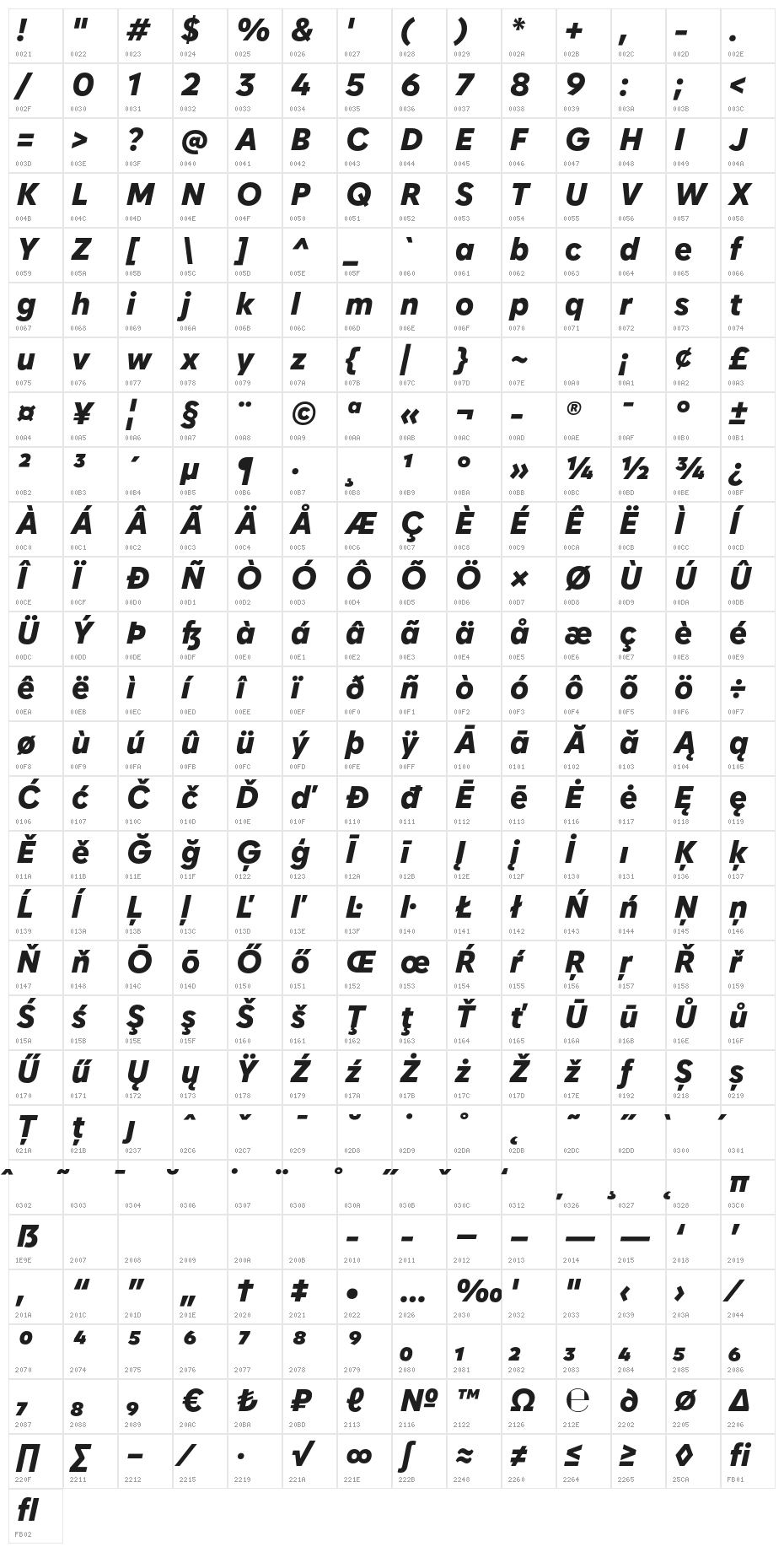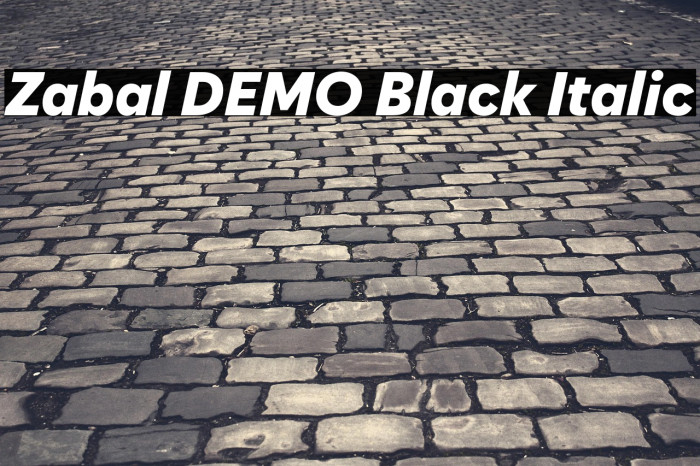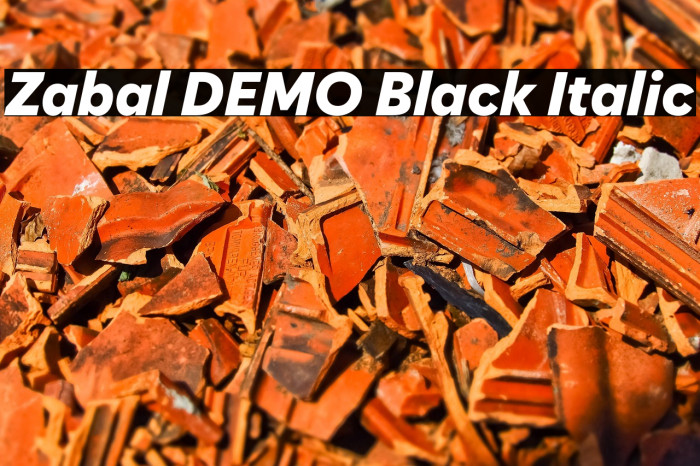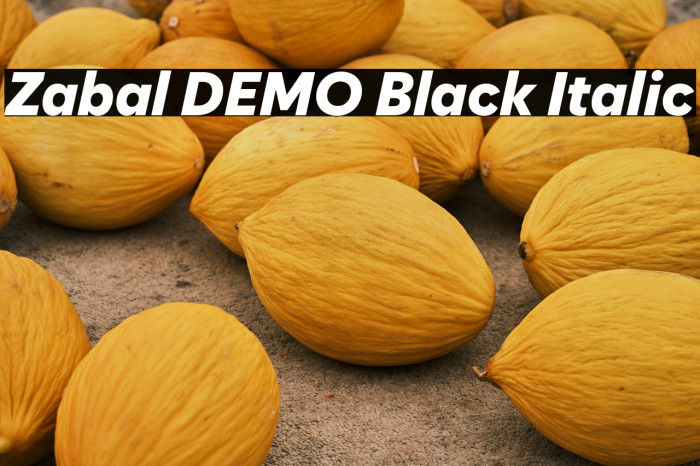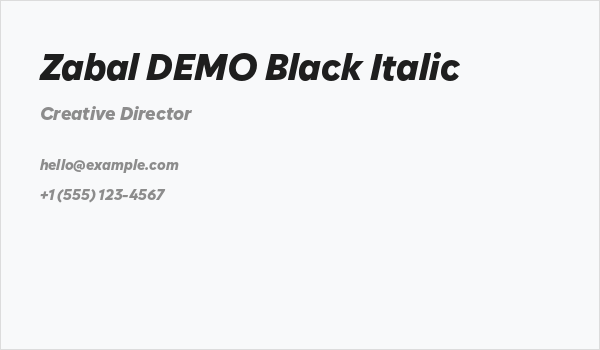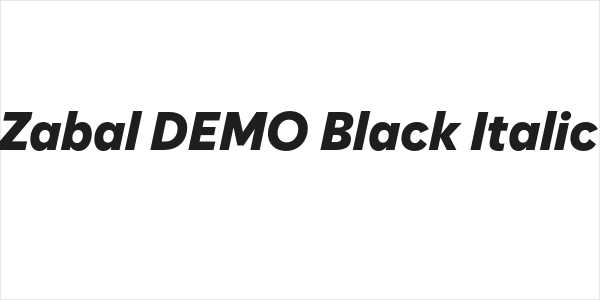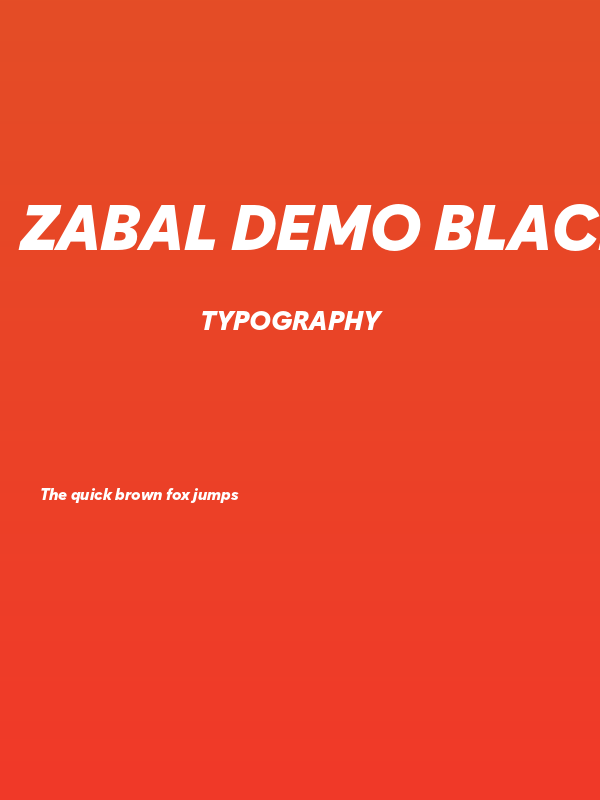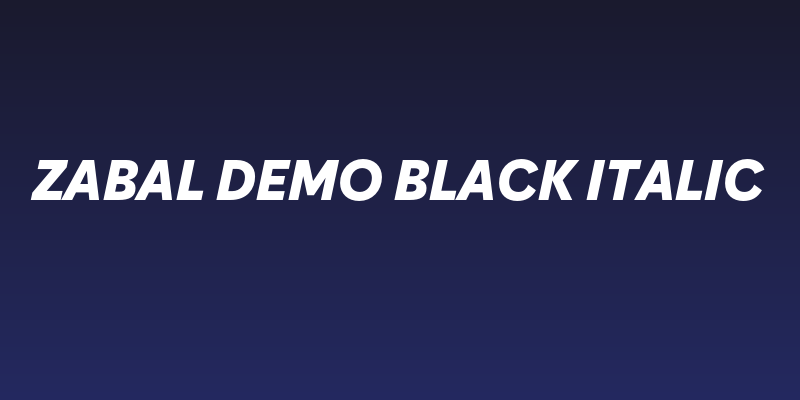
Zabal DEMO Black Italic Font
Zabal DEMO Black Italic Description
This font exudes a bold and dynamic presence with its strong, thick strokes and italicized form. The characters are slightly slanted, giving a sense of motion and energy. The uppercase letters are robust and commanding, while the lowercase letters maintain a consistent weight, ensuring readability. The numerals are equally bold, making them stand out effectively. Special characters are designed with the same boldness, ensuring uniformity across the typeface. This font is ideal for making a strong visual impact.
| Use Case | Headlines, Logos, Advertising |
| Proposed Projects | Ideal for branding, advertising, headlines, and any project needing a bold statement. |